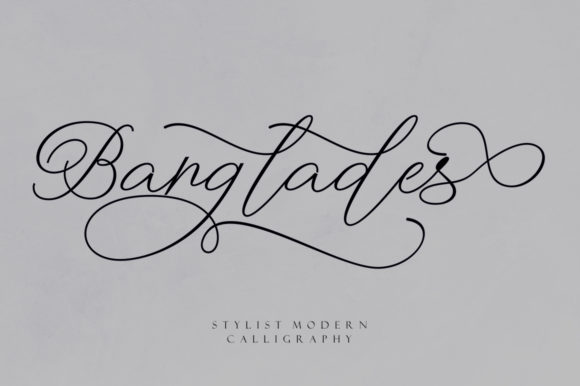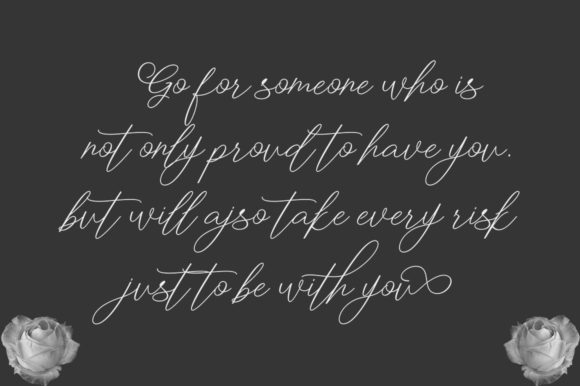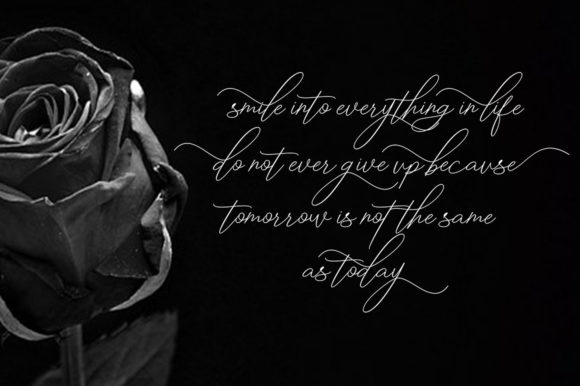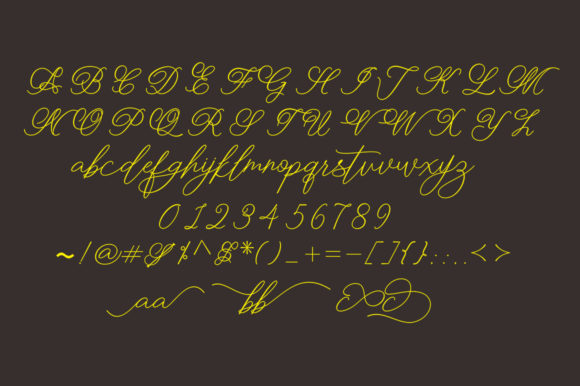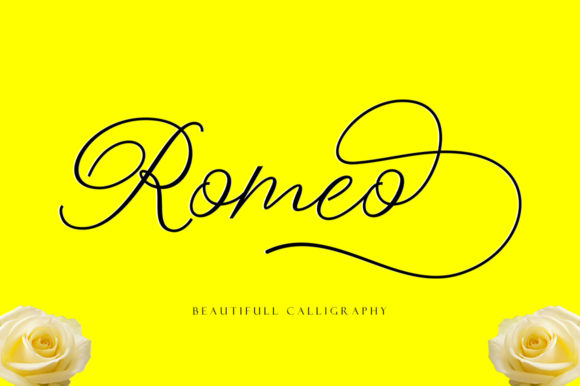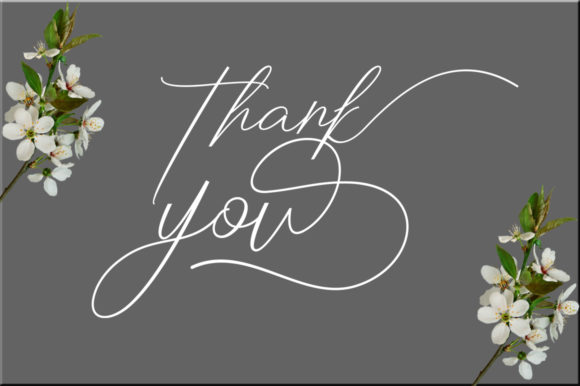
Victoria Font
About Victoria Font
Victoria is a beautiful, light and elegant handwritten font with an amazing feel. Get inspired by its unique charm, and turn any design project into a stand out!